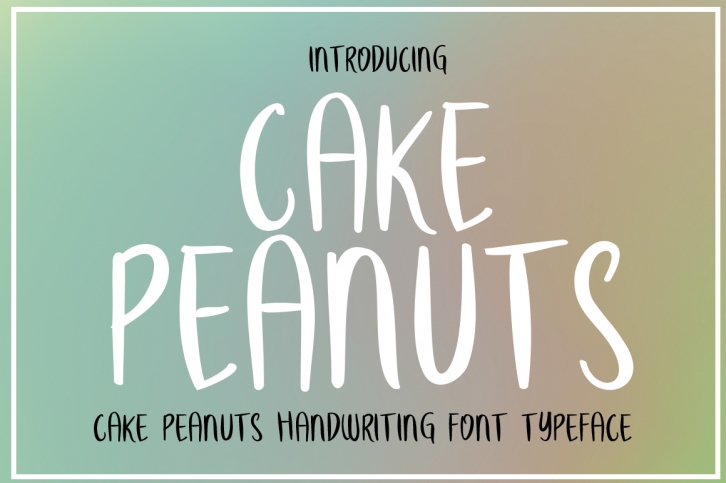
CAKE PEANUTS is a great font that was designed by HD font studios. Imagine the amount of combinations you can create using this font! The archive is 5.24 MB and it was released on December 29, 2019. CAKE PEANUTS looks beautiful on wedding invitations, greeting cards, logos, posters, labels, t-shirt designs, logos, business cards and is perfect for use in ink or watercolor works, fashion, magazines, packaging and food menus, children's books and more!